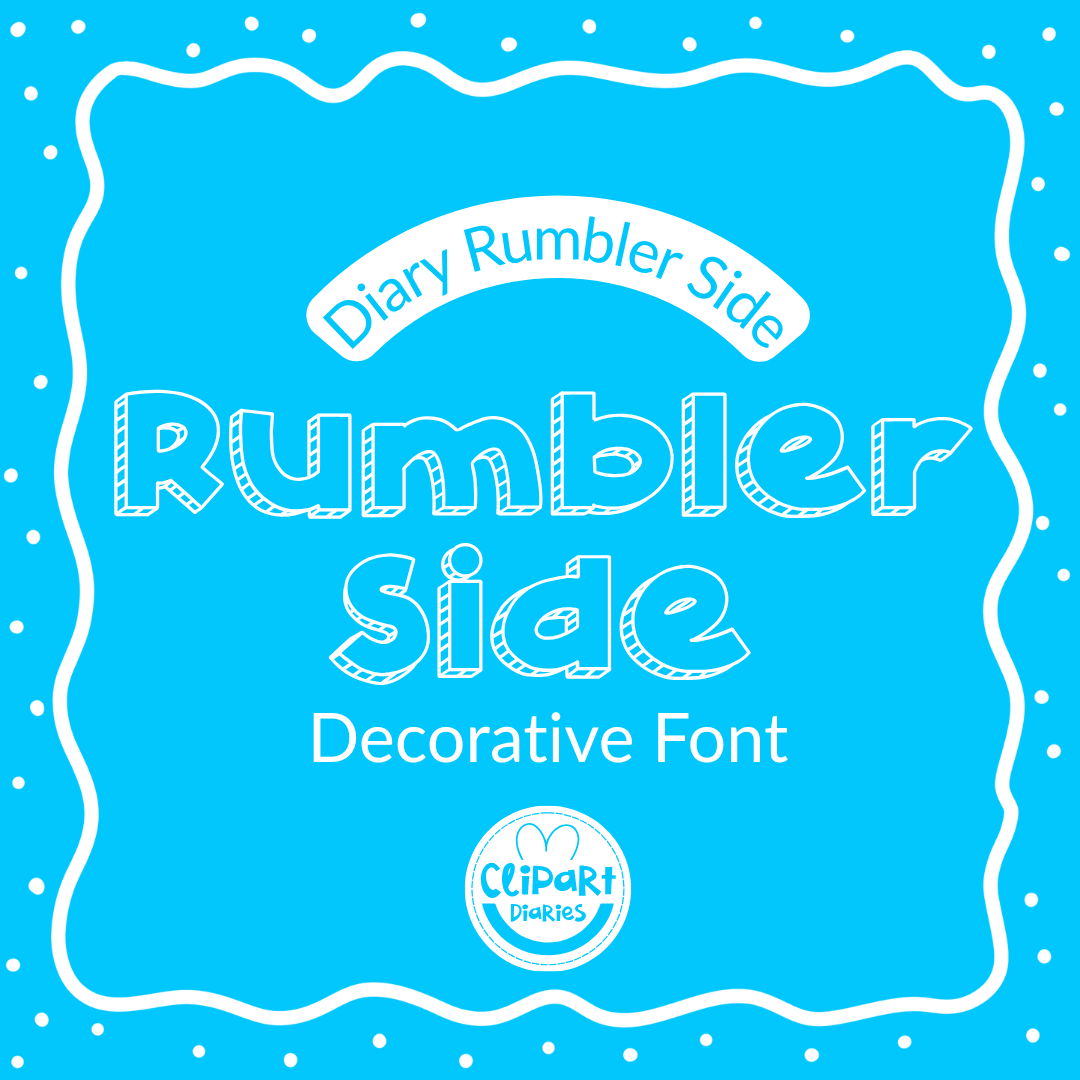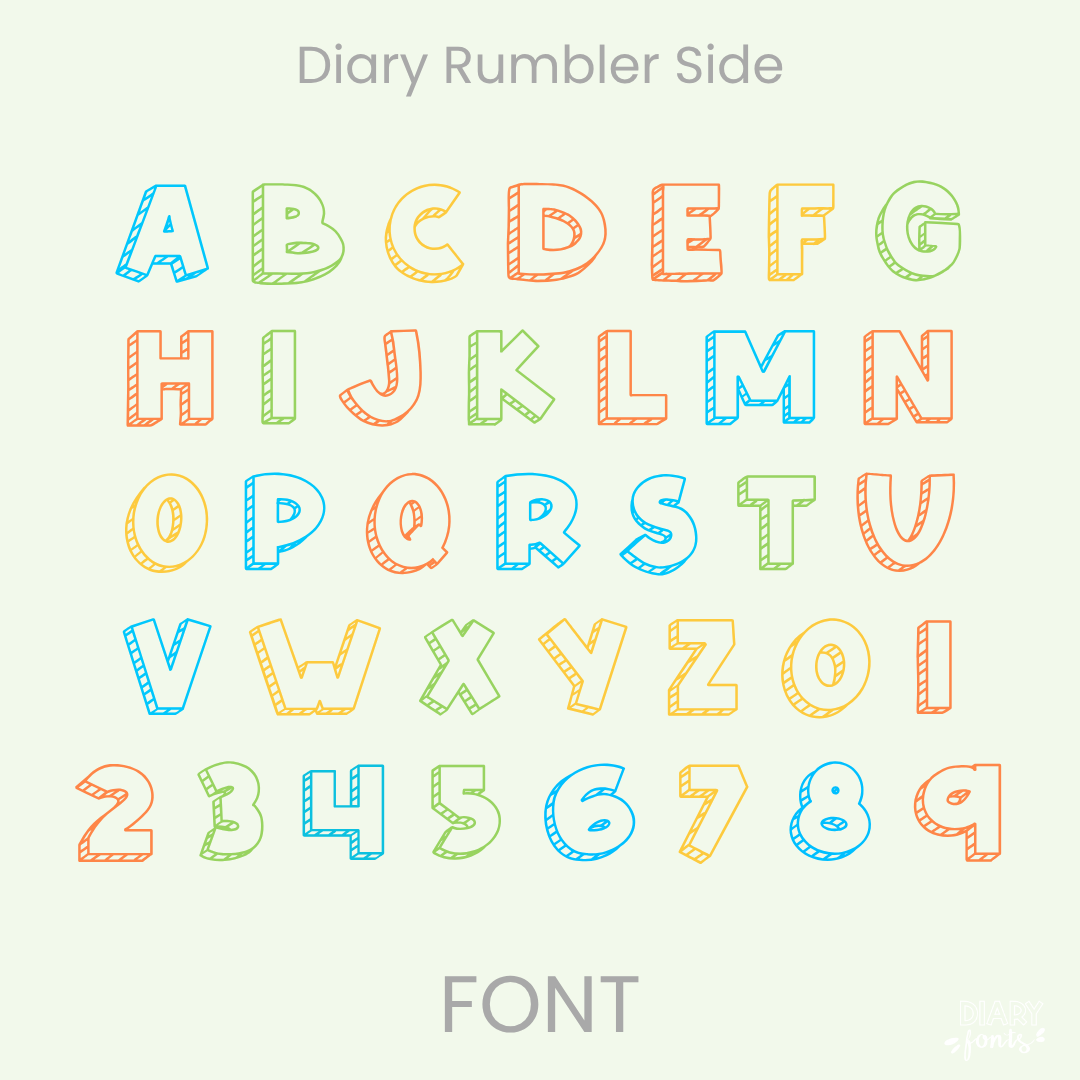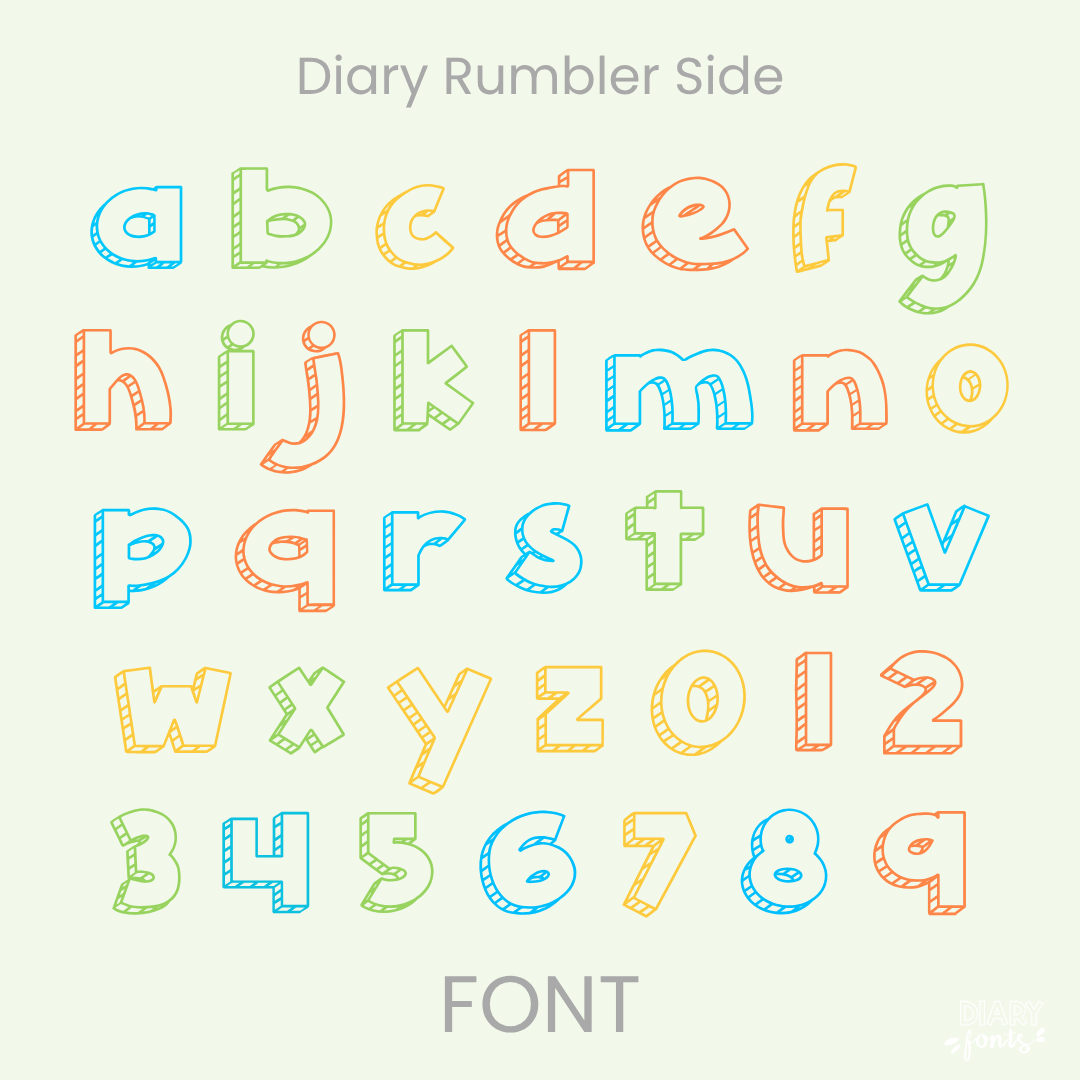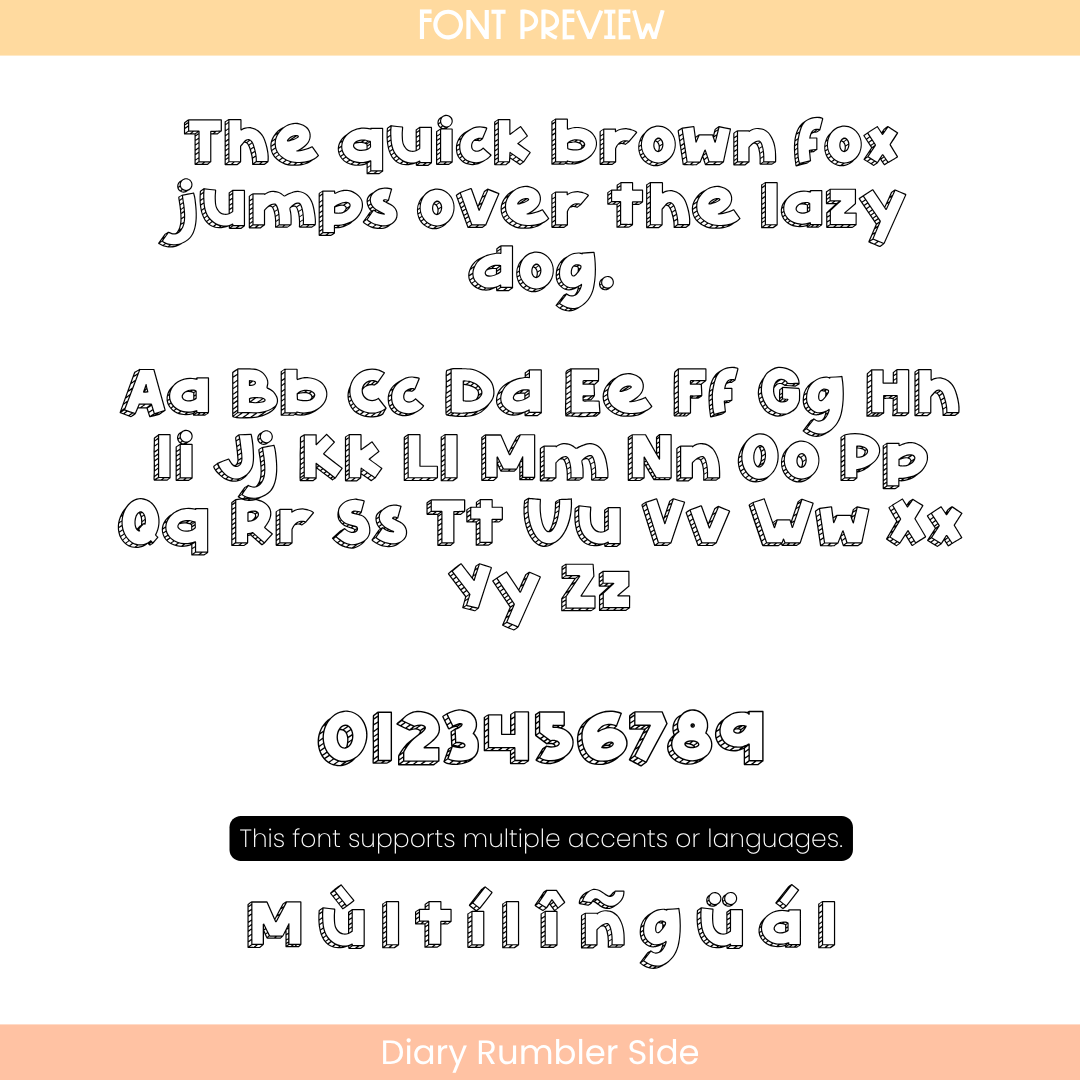
If you want a bold heading font that your students can actually color in, Diary Rumbler Side is about to become your new favorite design tool. This clever display font features chunky, open outline letters paired with a textured, sketch-style side shadow. With its delightful baseline bounce and hollow centers, it brings tons of playful energy to the page while staying completely clean, crisp, and incredibly easy for your sweet students to read from across the room.
It is the absolute perfect choice for designing interactive bulletin boards, custom presentation slide titles, coloring pages, subject covers, and classroom labels where you want a fun, layered look. Inside the download, you’ll get a full set of outlined and shadowed uppercase and lowercase letters, matching numbers, and multi-accent marks for complete multilingual support. It drops right into Canva, MS Office, or Adobe on your desktop, and pairs beautifully with Procreate and GoodNotes on your iPad. Whether you’re crafting weekly printables for your own sweet classroom or designing a bold new product line for your online teacher shop, this side-shadowed outline font adds a touch of confident, friendly style to your toolkit.